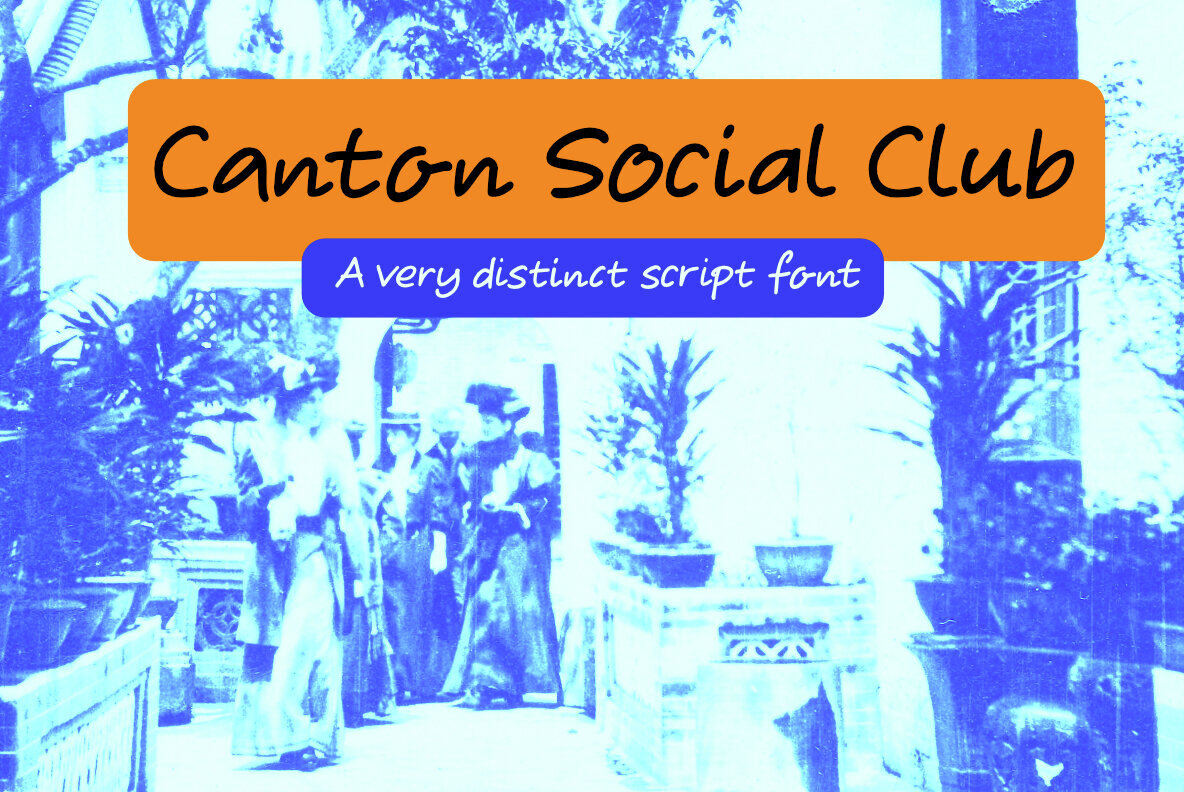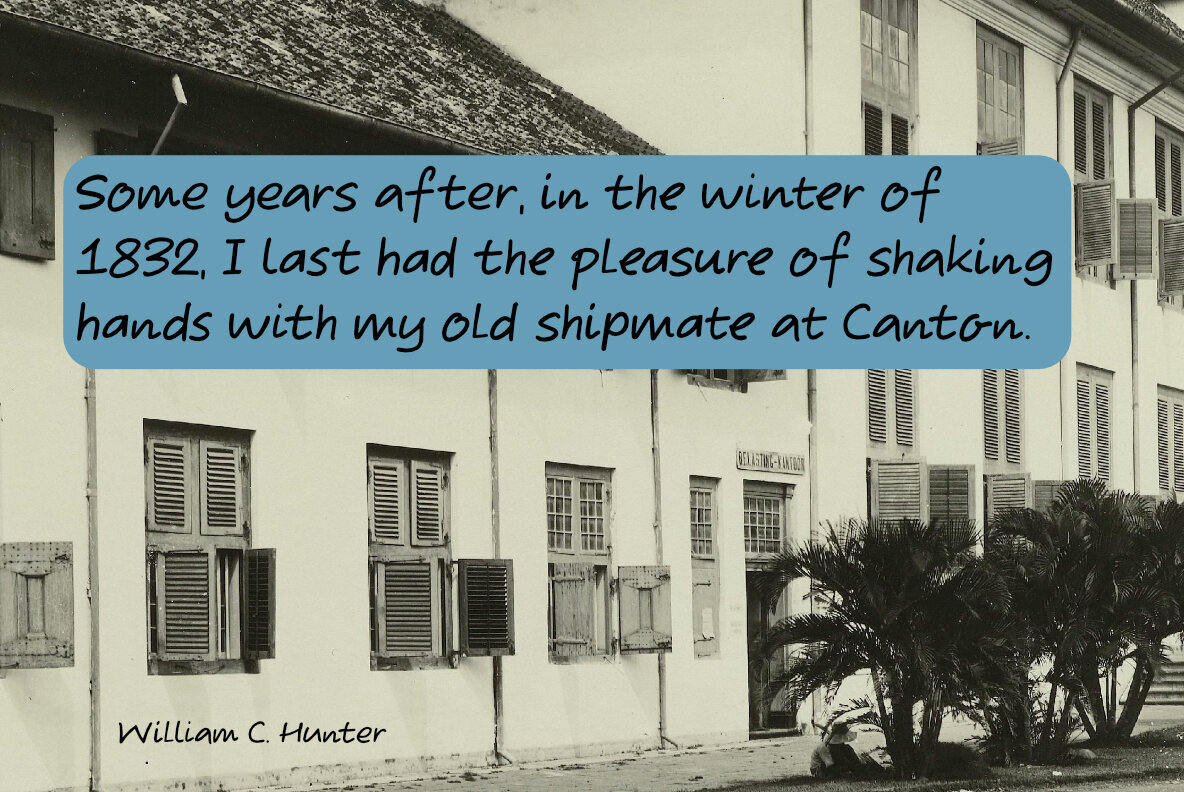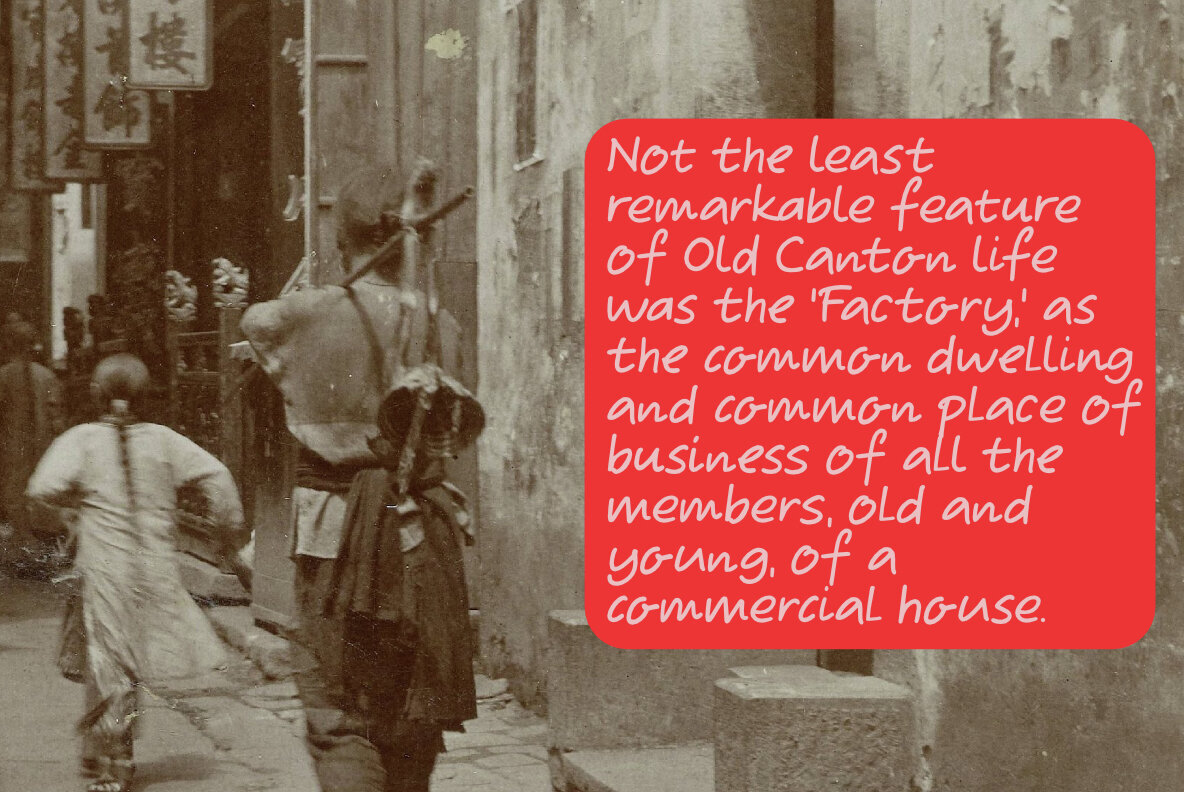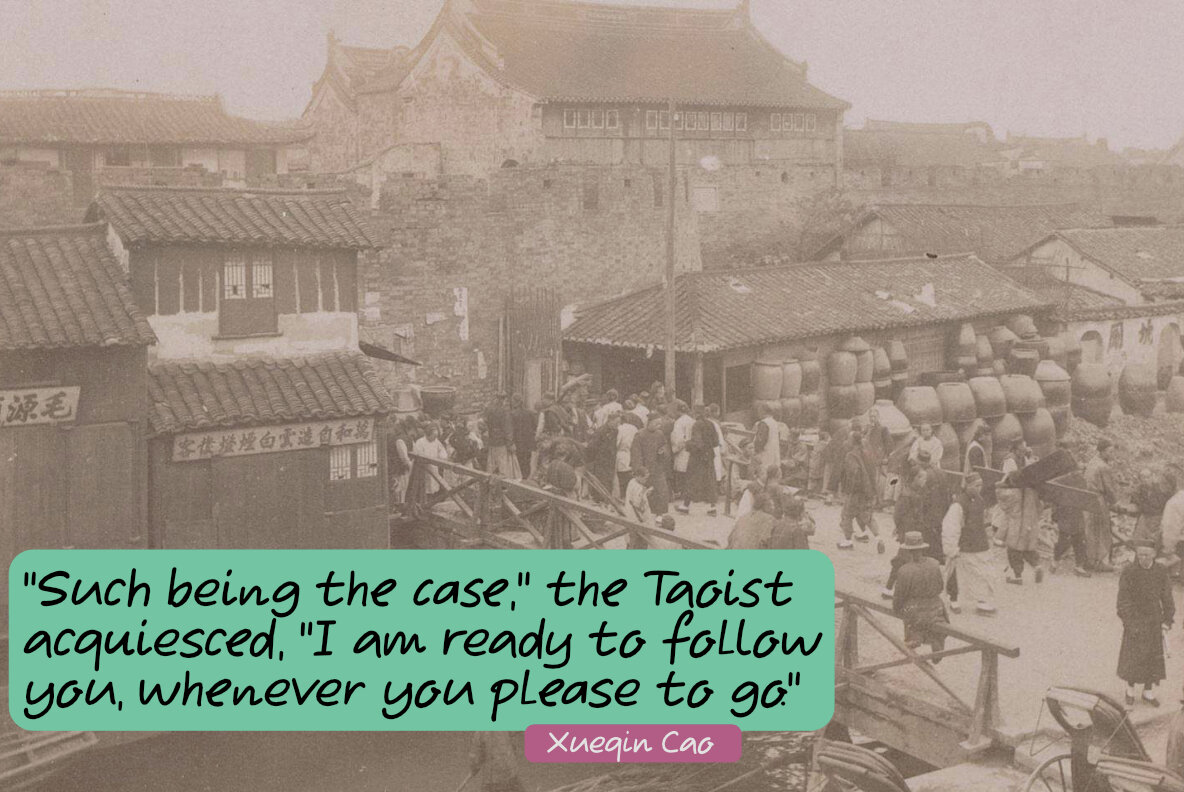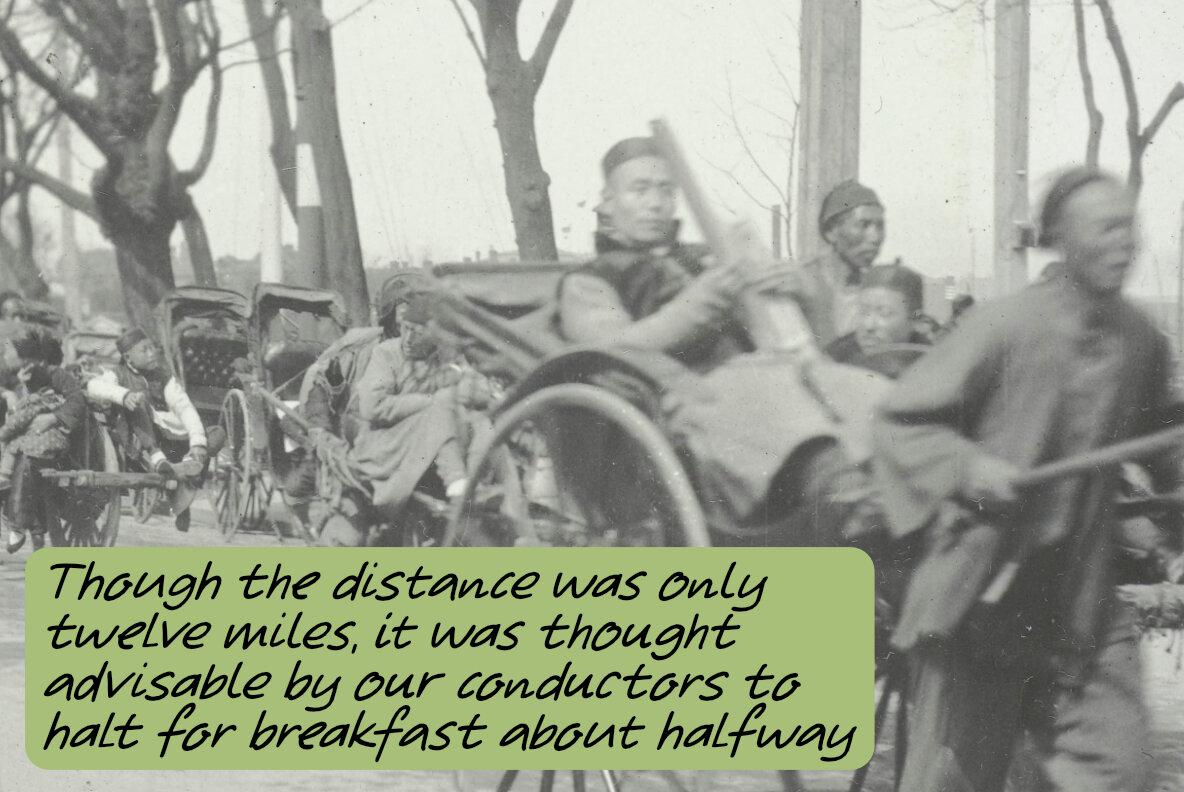
Canton Social Club Font
Canton Social Club
Experience the charm of British culture with Canton Social Club, a handwritten script font inspired by the quaint allure of a local gathering spot. This font captures a modern yet nostalgic essence, with its slightly slanted and slightly roughened strokes. Perfect for a variety of creative endeavors, Canton Social Club brings a casual elegance that enhances everything from personal projects to professional presentations.
- Handwritten Style: Delivers an authentic, personal touch to your designs.
- Contemporary Edge: Combines classic script with modern sensibilities.
- Versatile Usage: Ideal for branding, invitations, social media, and more.
Embrace the spirit of communal camaraderie with Canton Social Club, where tradition meets versatility in a seamless flow.